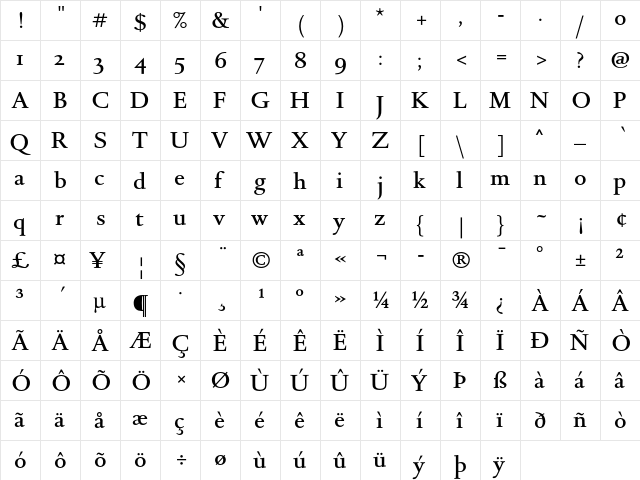
DTLRomulusSTMedium Regular
Design Context for DTLRomulusSTMedium Typeface
DTLRomulusSTMedium is a composed and adaptable typeface that performs quietly and consistently across a wide range of design contexts.